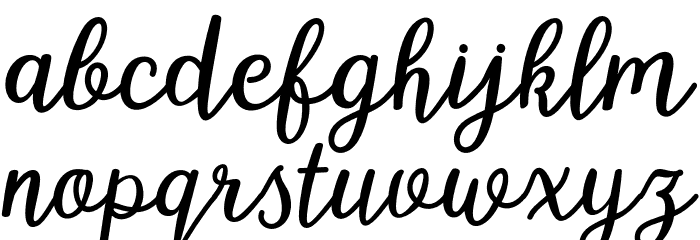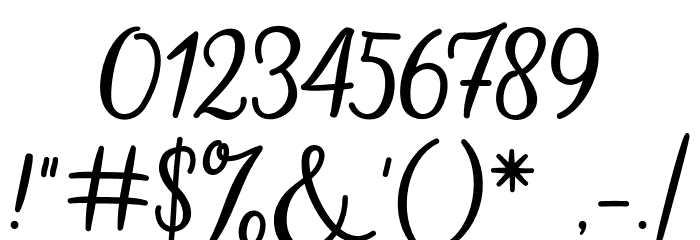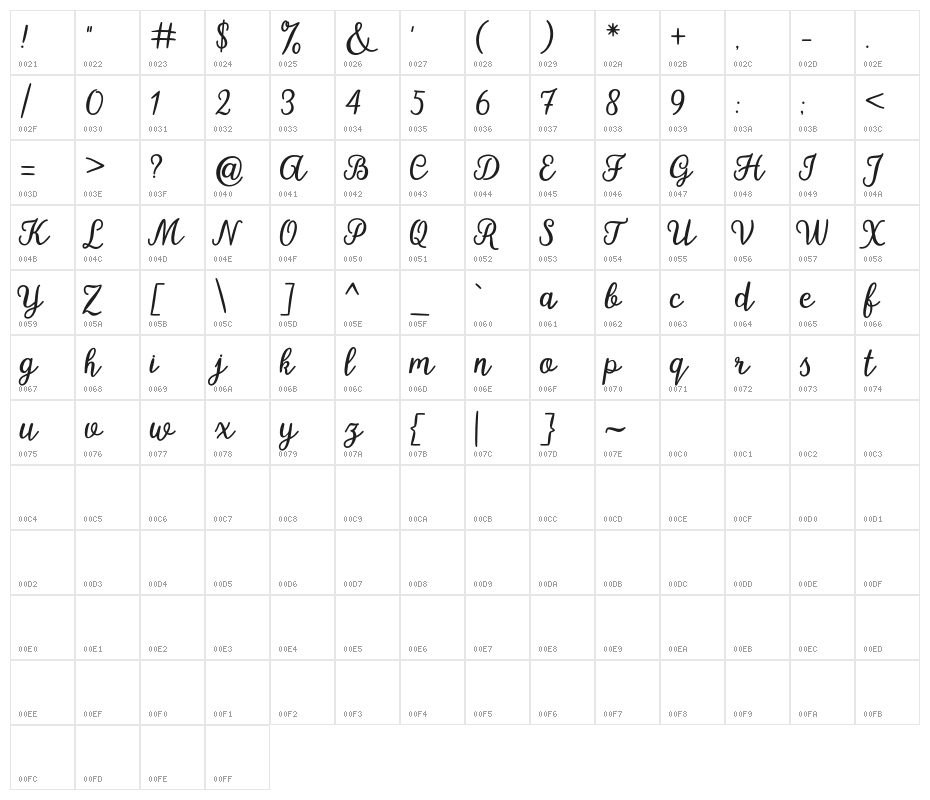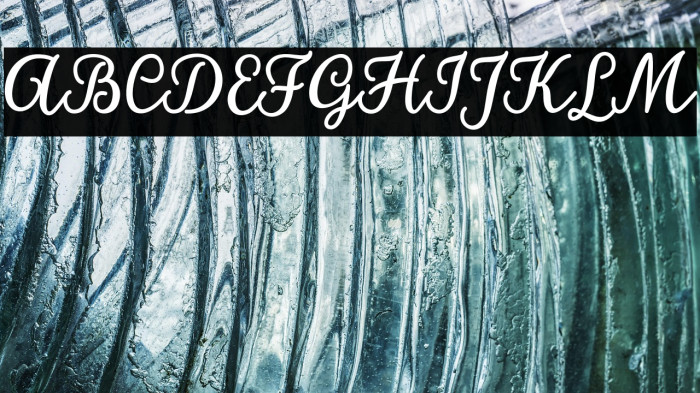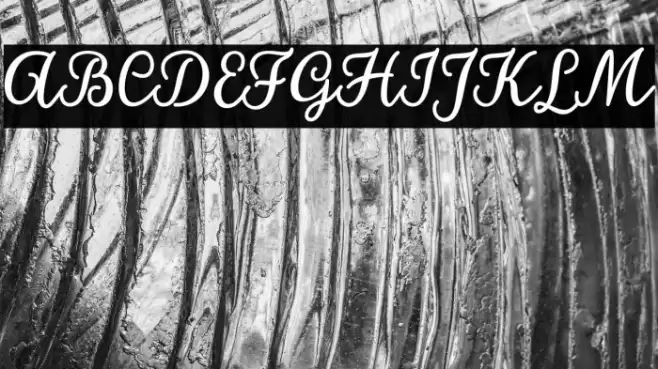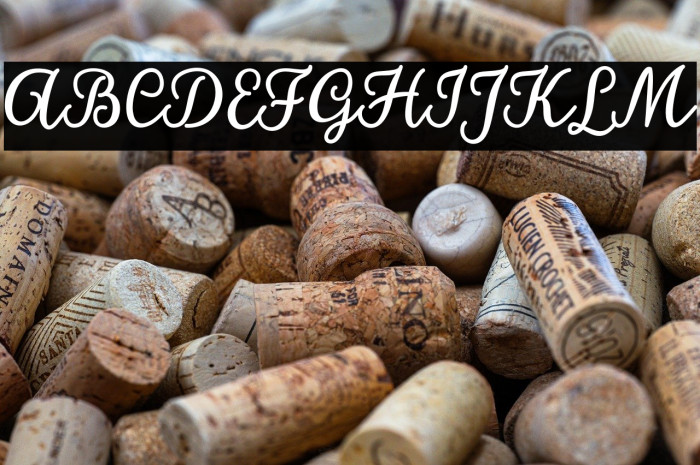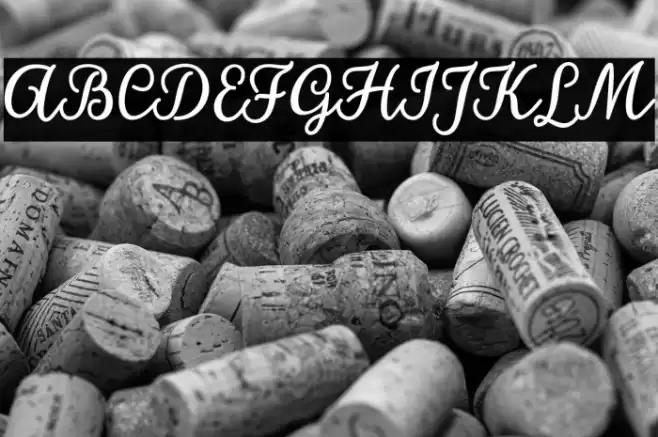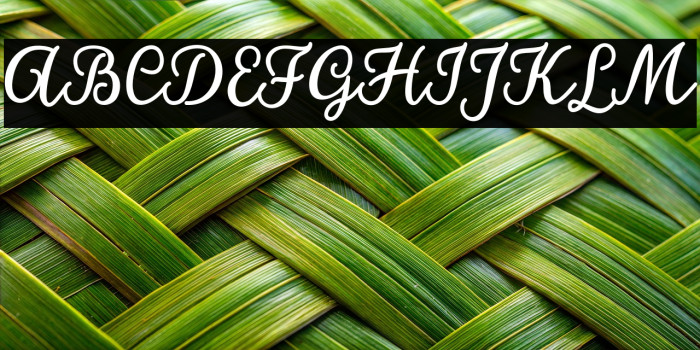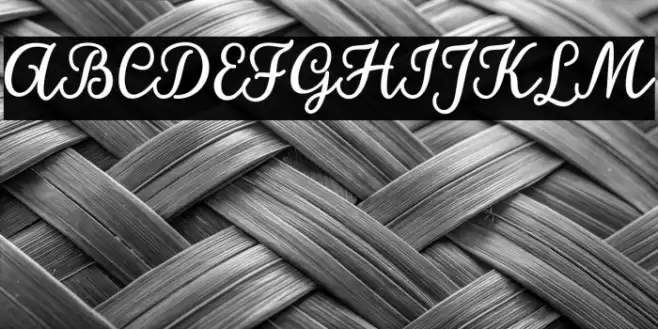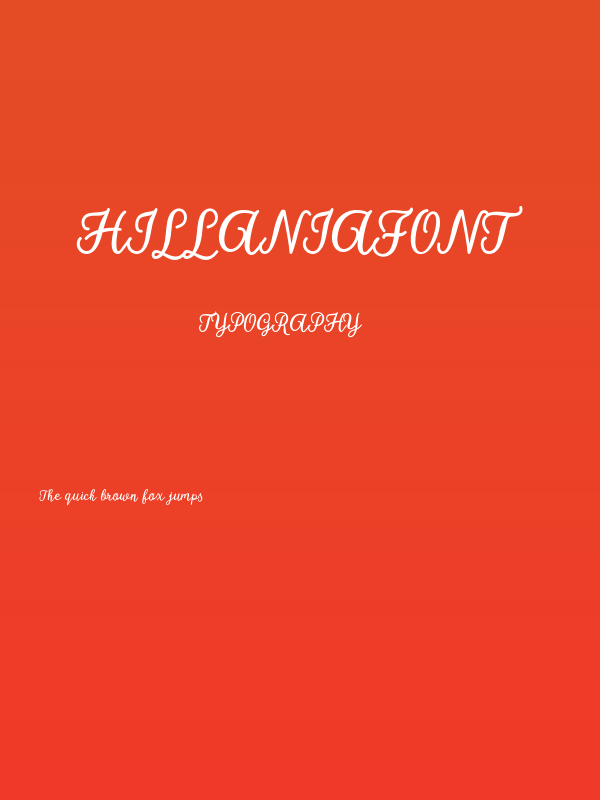
hillaniafont Font
This font features a flowing, cursive style that exudes elegance and sophistication. The uppercase letters are gracefully connected, while the lowercase letters maintain a consistent rhythm with smooth curves and loops. The numerals are distinct yet harmonize well with the overall script style. Special characters are thoughtfully designed to match the font's aesthetic, making it versatile for various uses. The font's strokes are moderately thick, providing good readability without sacrificing its decorative appeal. It is well-suited for projects that require a touch of class and personality.
A flowing, elegant cursive font with smooth curves and moderate stroke thickness.
- Font: hillaniafont
- Proposed Projects: Ideal for wedding invitations, greeting cards, branding, and elegant signage.
- Category: Script
- Overall Style: Elegant, Decorative
- Use Case: Logos, Invitations, Headlines